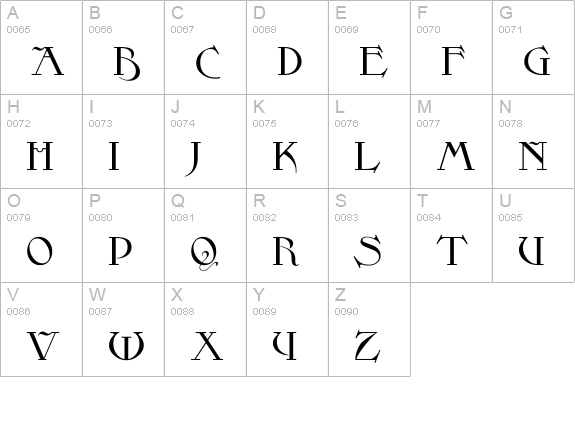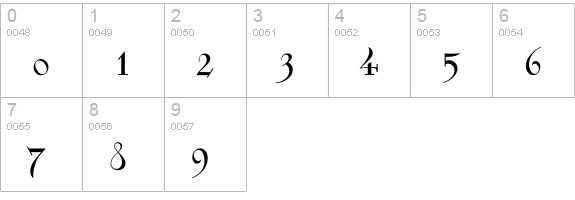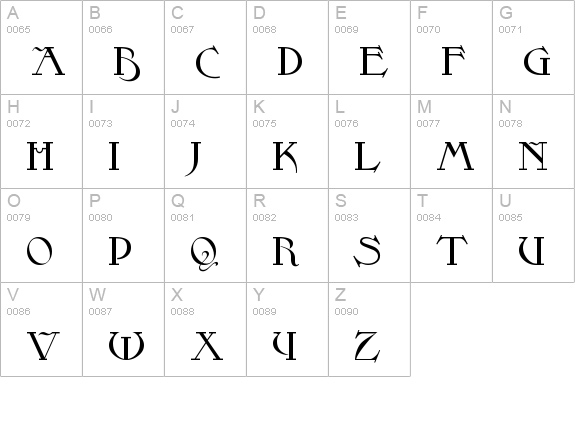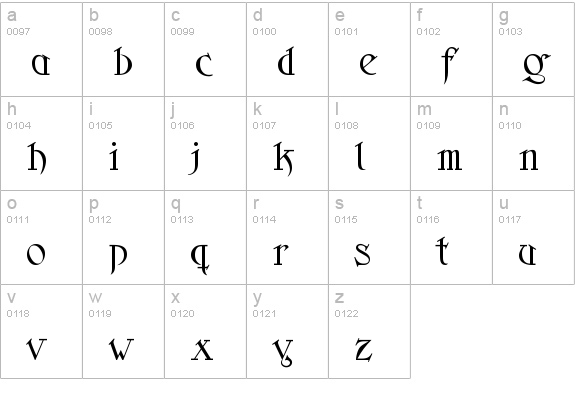
Scythe Font Details
Introducing Scythe Font, a captivating typeface that combines elegance and modernity in perfect harmony. With its sleek and sophisticated letterforms, Scythe is sure to make a lasting impression on any design project. This versatile font is ideal for a wide range of creative endeavors, from branding and advertising to packaging and editorial design. Its clean lines and balanced proportions lend themselves beautifully to both headlines and body text, ensuring a seamless reading experience. One of the most exciting aspects of Scythe Font is that it is available for free download at FontsMarket.com. Yes, you read that right - absolutely free! This means that you can add this stunning typeface to your font library without any cost, making it even more accessible to designers and enthusiasts alike. The fluid curves and distinctive letter shapes of Scythe Font create a timeless appeal that transcends trends, making it a valuable asset for any design project. Whether you're working on a logo, a website, or a print campaign, Scythe Font will elevate your work and captivate your audience with its refined aesthetic. Don't miss out on this incredible opportunity to enhance your designs with Scythe Font. Visit FontsMarket.com today and download this beautiful typeface for free. Empower your creativity and embrace the endless possibilities that Scythe Font brings to your design toolkit.